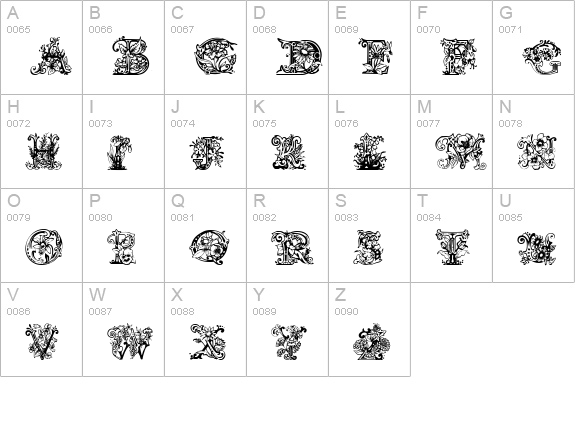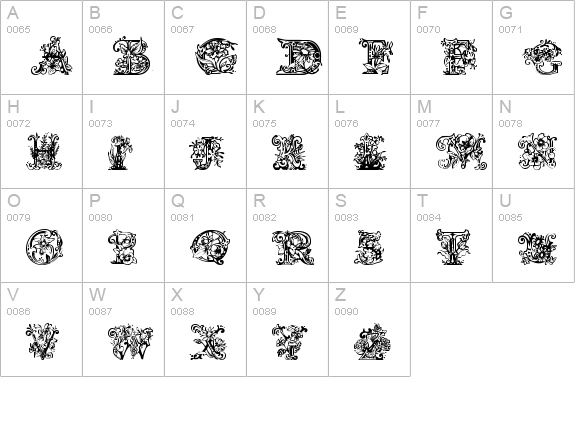
Lime Blossom Caps Font Details
Lime Blossom Caps is a charming and elegant display font that exudes a touch of whimsy and sophistication. With its delicate strokes and intricate details, this font is perfect for adding a touch of grace to any design project. The ornate floral motifs that adorn each letter bring a sense of nature and beauty to your creations. What sets Lime Blossom Caps apart is not only its stunning design but also the fact that it is available for free download at FontsMarket.com. This means that you can easily access this exquisite font without any cost, making it a valuable addition to your font collection. Whether you're designing invitations, branding materials, or any other project that requires a touch of elegance, Lime Blossom Caps is sure to elevate your work to new heights. Download it today and let your creativity blossom with this gorgeous font.